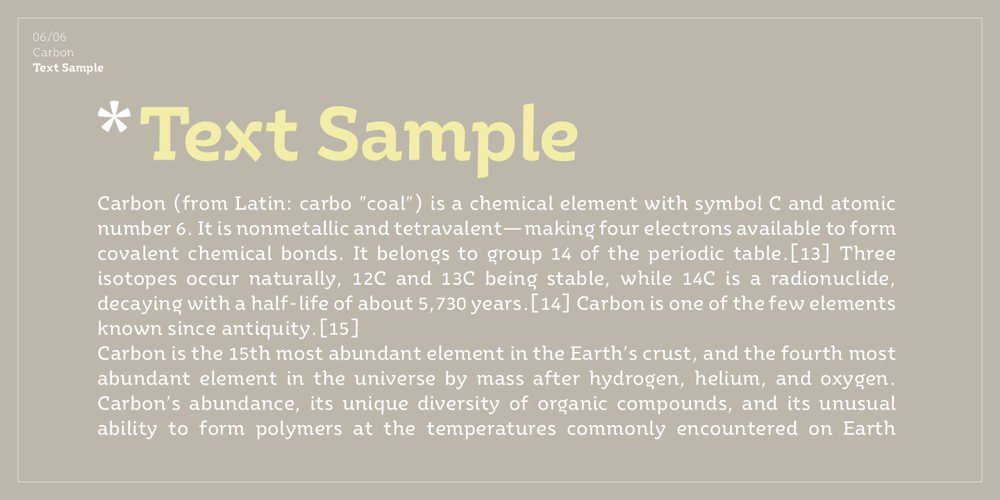
Ye Carbon Font Family was designed by Yinon Ezra and published by Yinon Ezra. Ye Carbon contains 5 styles and family package options. Slab-serif typeface, with pulsating and flexible forms, which gives the font its humanistic character. Ye Carbon crystallized into its forms in search for graphic language that would represent a sense of matter, of letters written by hand. The delicate finishes at the edges of the letters, and the flexibility of the of shapes, gives a feeling of matter, and bring the font to life. Ye Carbon will be a wonderful tool for variety of uses, thanks to its neat nature, and its forms in motion vibe, a rare and winning combination.